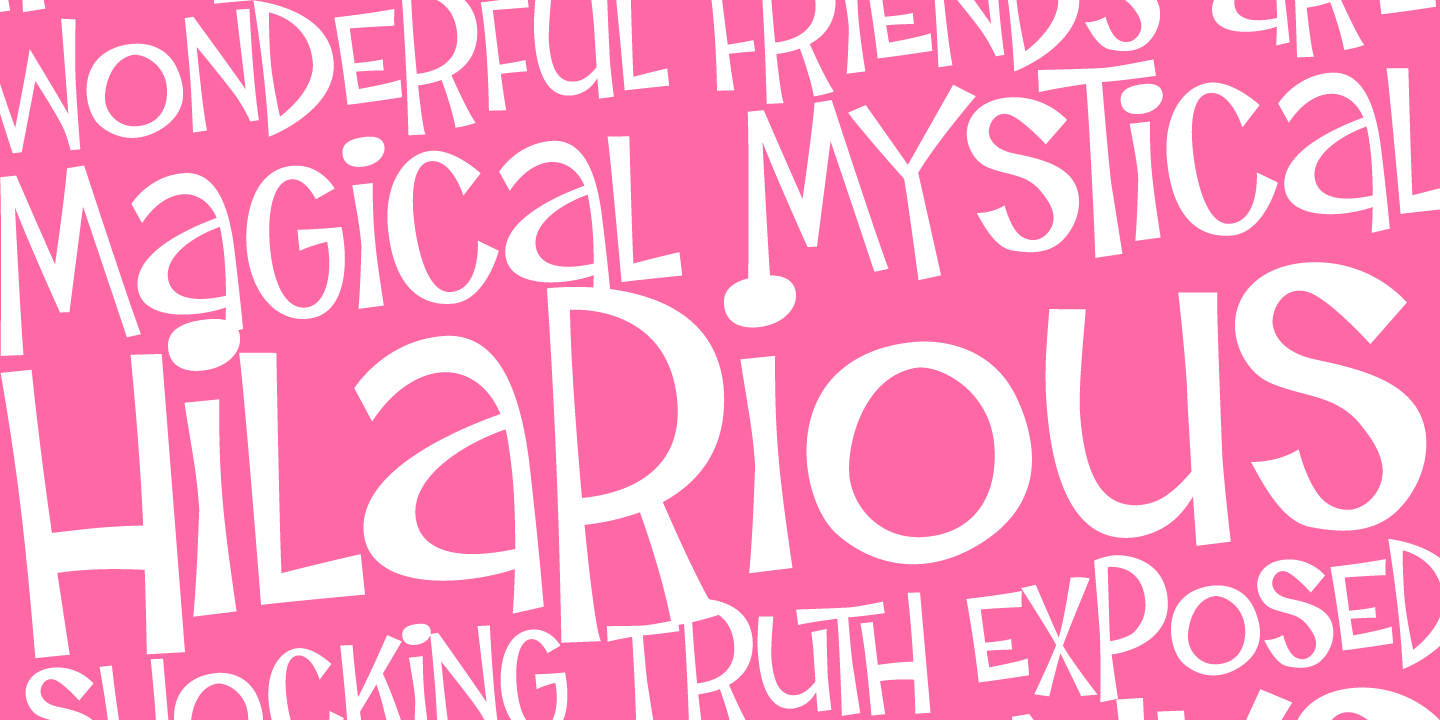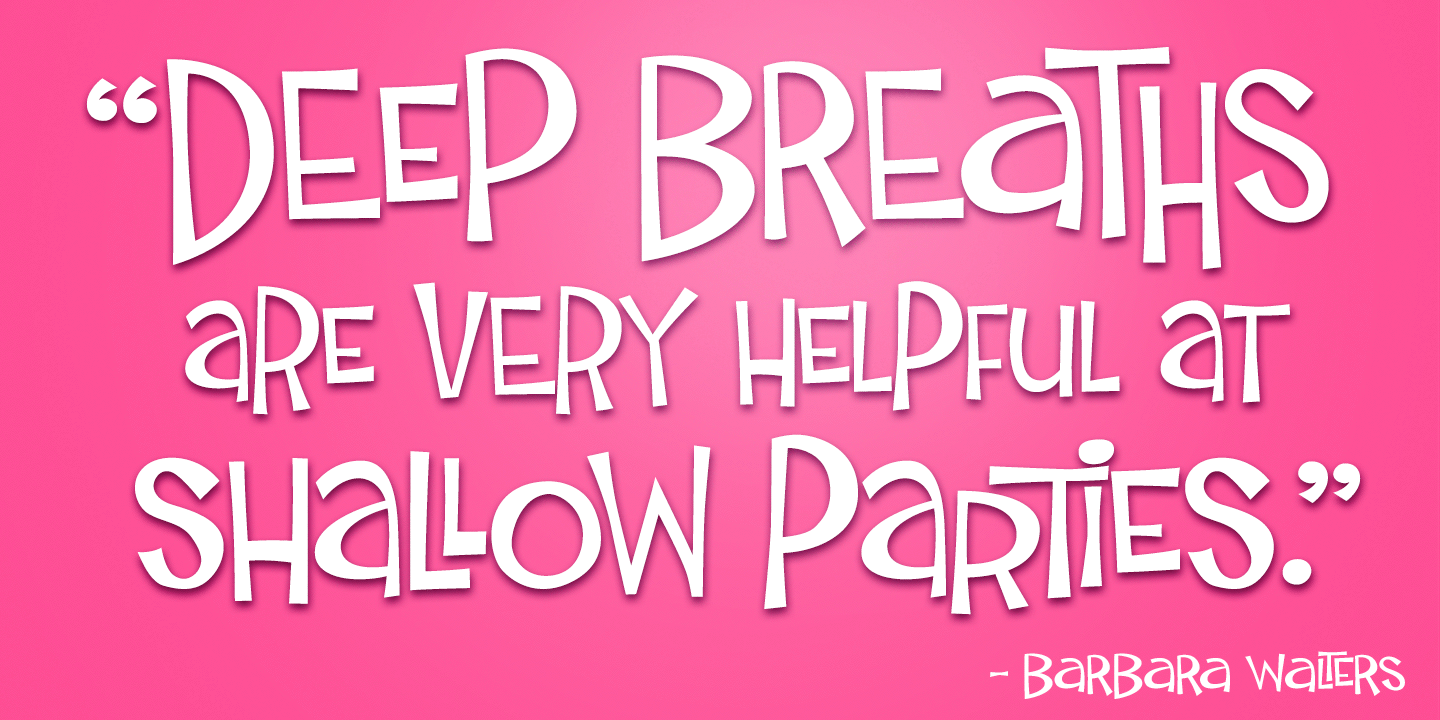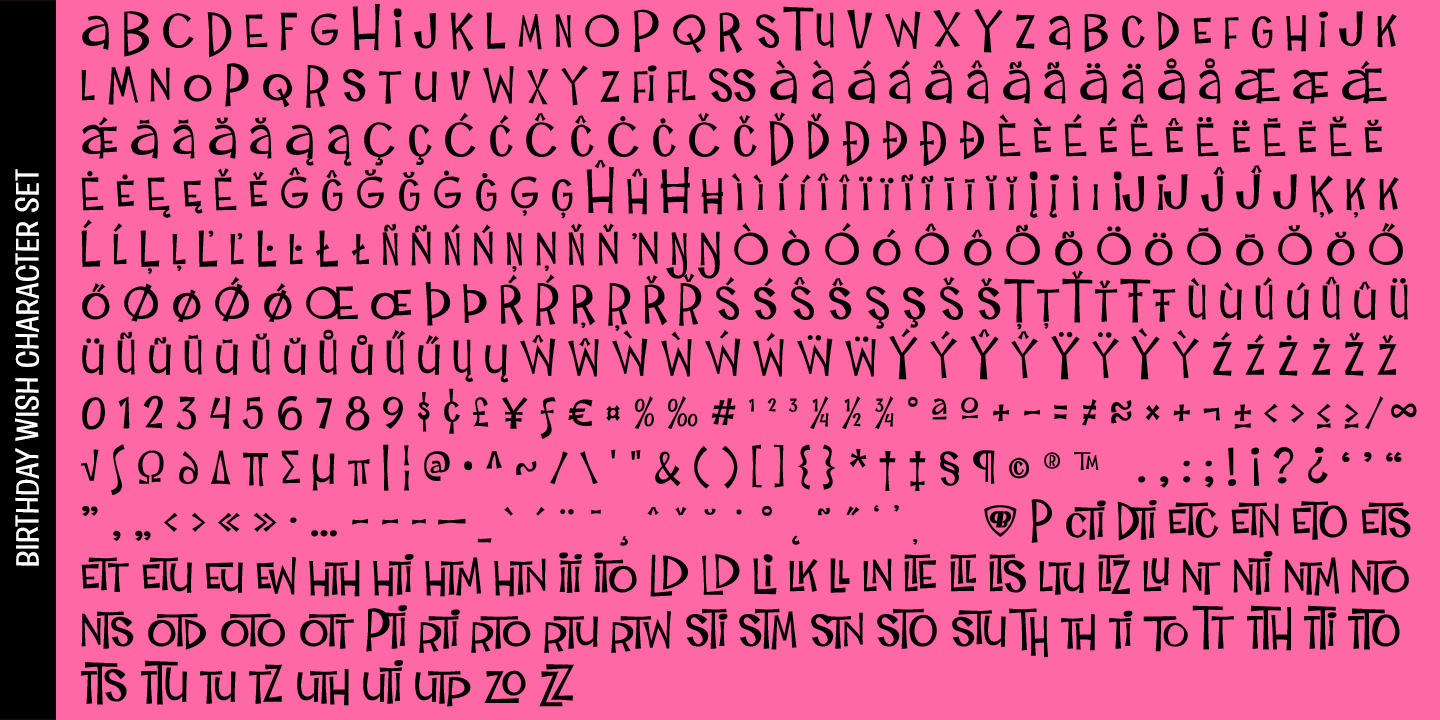
About Birthday Wish
Birthday Wish is a totally off-kilter sans-serif font inspired by a late 70\’s birthday greeting card. Much like a typographic drunken stumble, this font wonderfully and awkwardly fumbles across designs, surprising with each letter typed. With a pseudo…